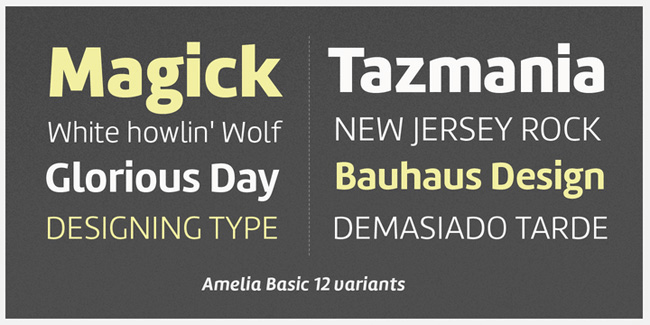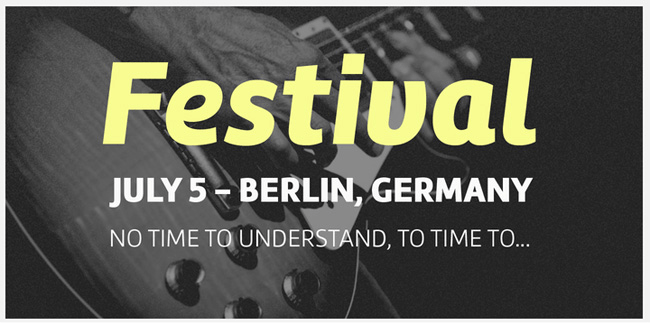
Amelia Basic
About Amelia Basic
Amelia Basic is a selected version of Amelia Family. Amelia Basic is a geometric sans, but it keeps the softness of humanistic strokes. The contrast and the differents styles alows Amelia Basic to work as a text or display font. The complete version…